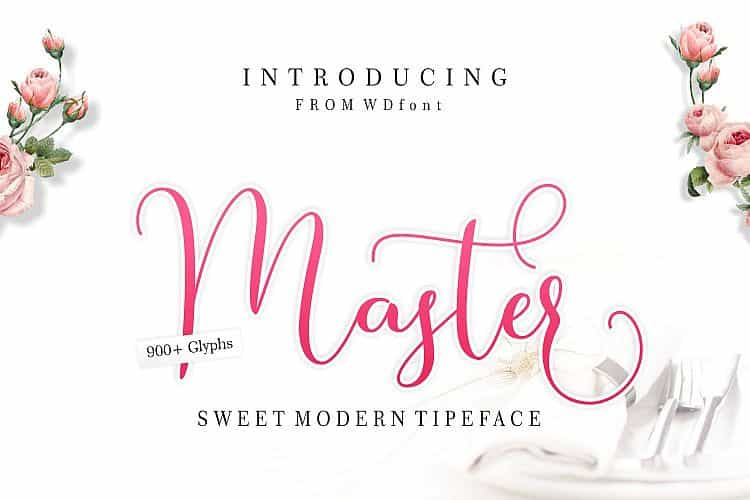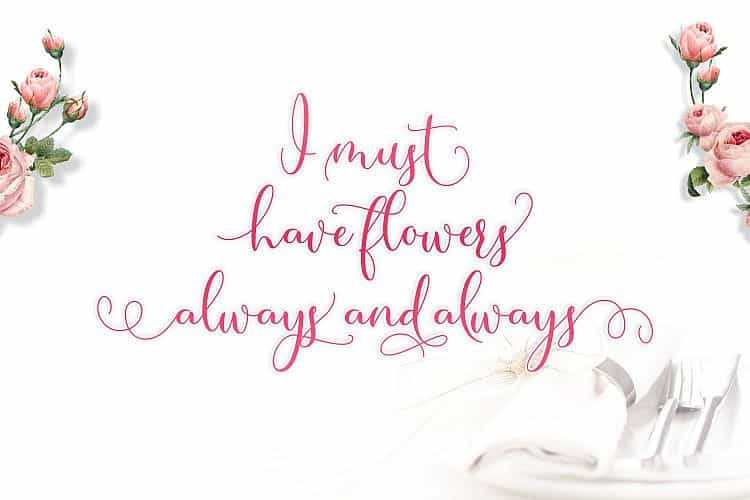
Introducing Master Font. It is the creation and sharing of wdfont. Master Script Font is a romantic font script which can be better combined. It has a distinctive and graceful design, and is ideal for making individual designs.